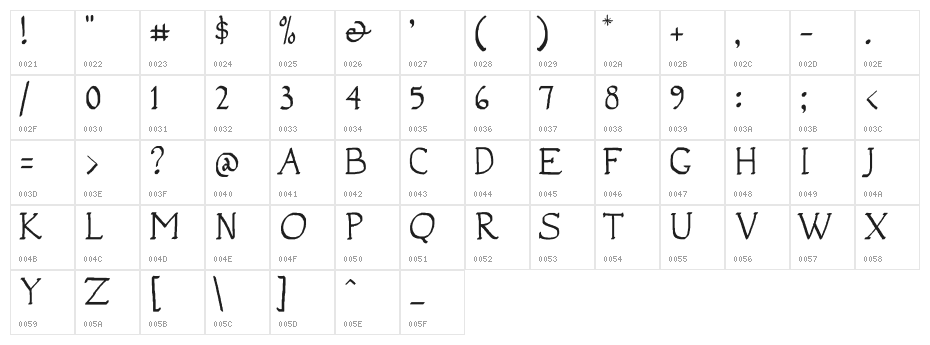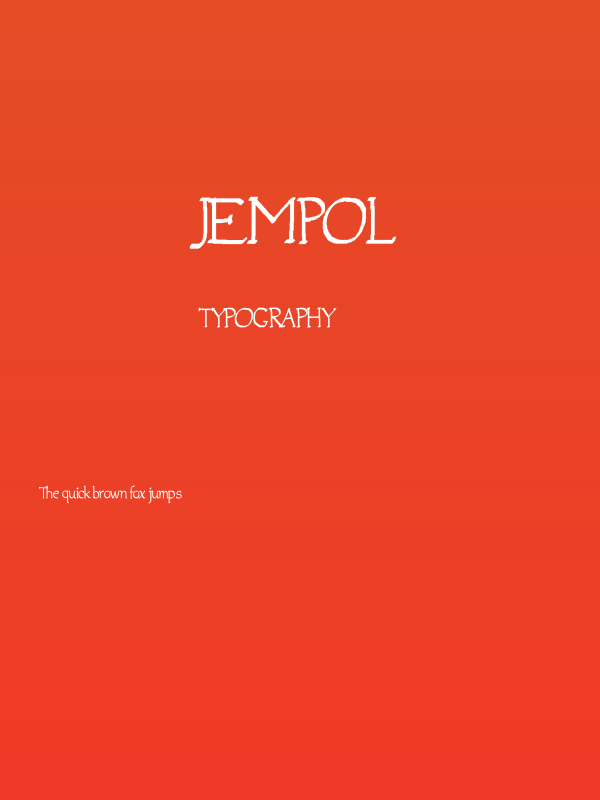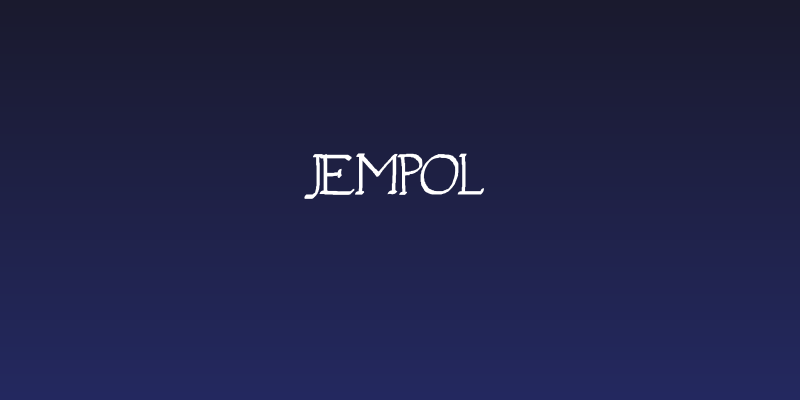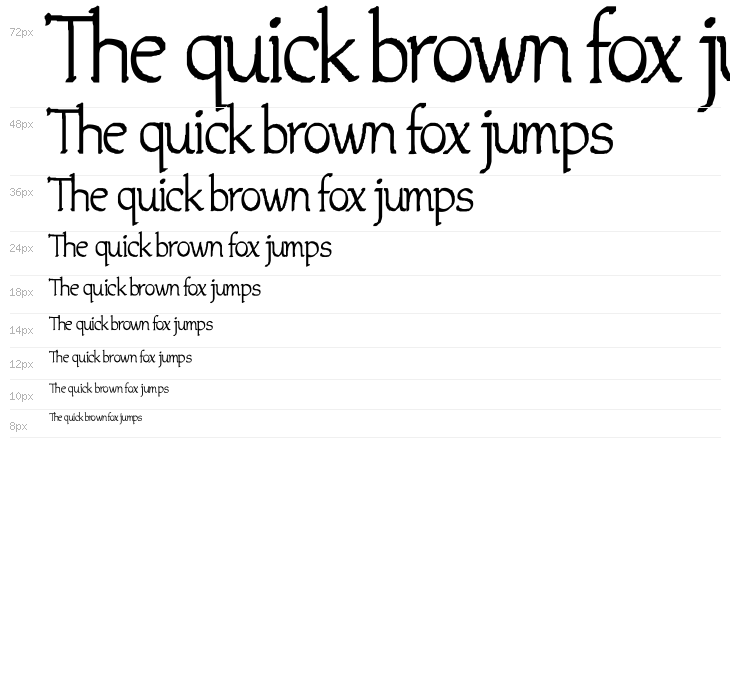
Jempol Font
Jempol Description
This font features a unique and artistic design with a hand-drawn appearance. The characters have a playful yet sophisticated style, with varying stroke widths that give them a dynamic and lively feel. The uppercase letters are tall and slightly narrow, while the lowercase letters maintain a consistent height, creating a harmonious balance. The numerals are distinct and easily readable, and the special characters add a whimsical touch. Overall, this font exudes a creative and expressive vibe, making it suitable for projects that require a personal and artistic touch.
| Overall Style | Artistic |
| Proposed Projects | Ideal for creative projects such as children's books, artistic posters, branding for creative businesses, and unique invitations. |